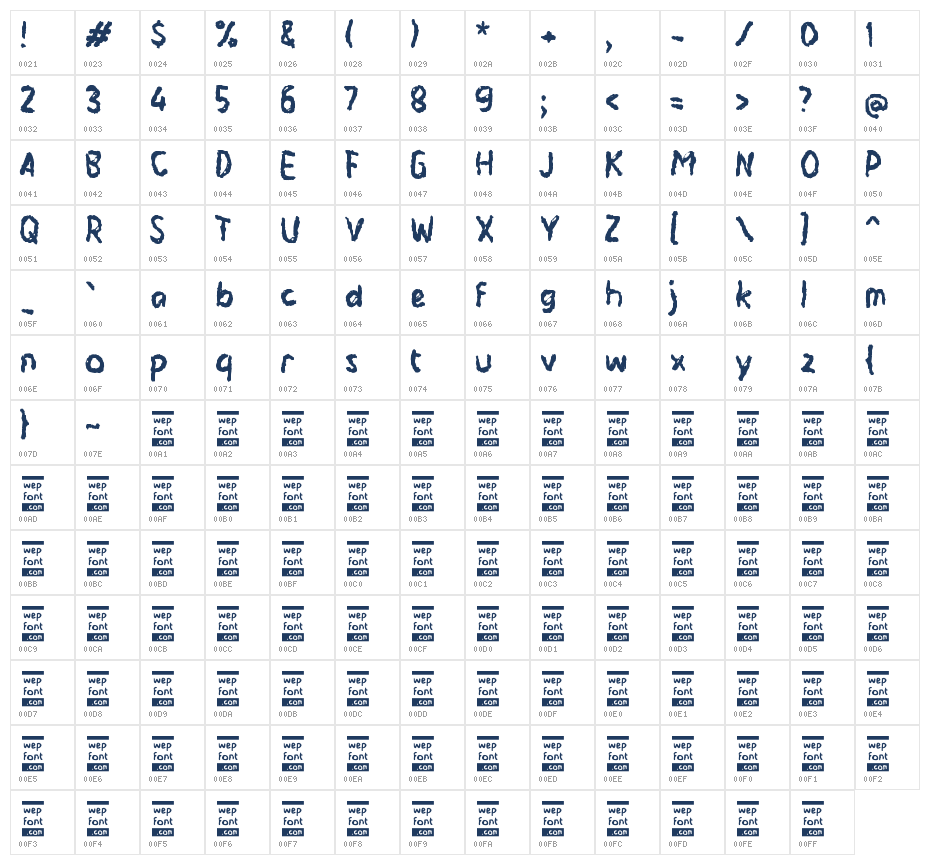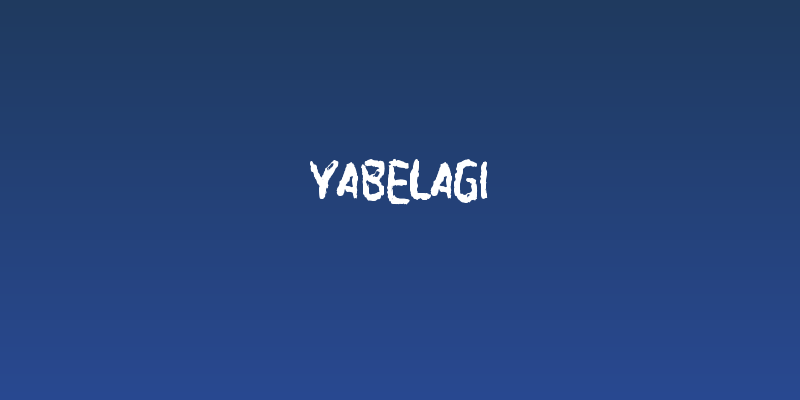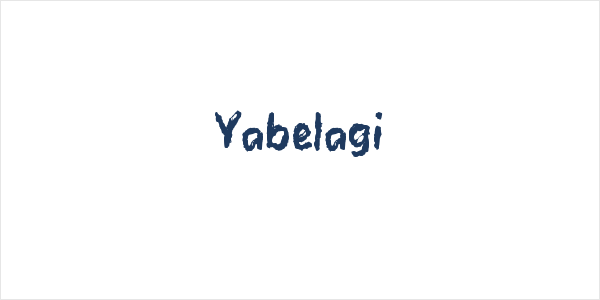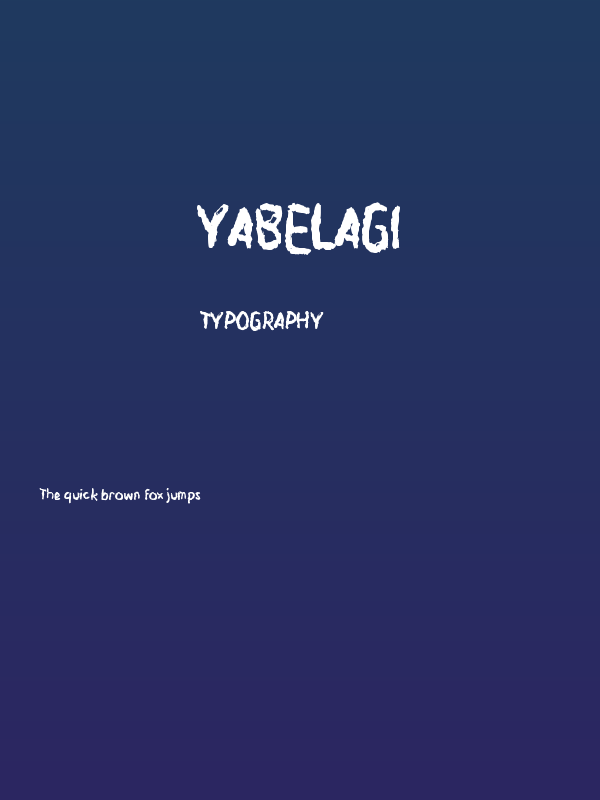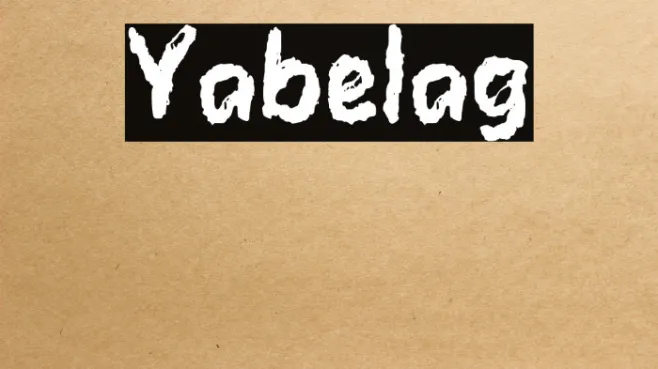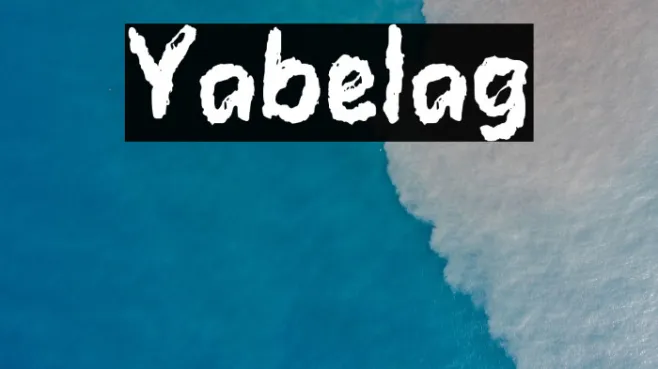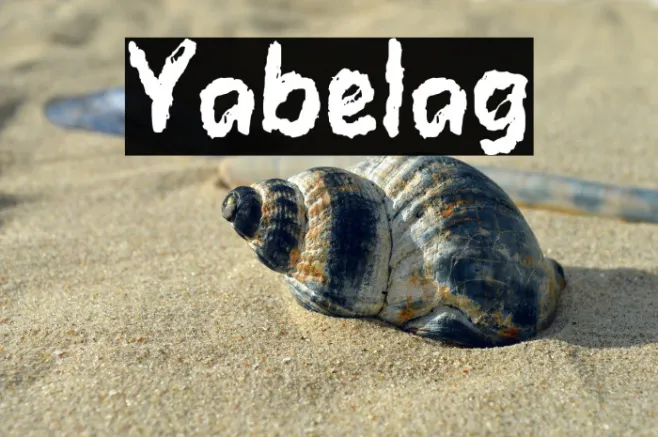
Yabelagi Font
Yabelagi Description
A rough, textured, handwritten style font with an irregular, sketchy appearance.
| Overall Style | Casual, Handcrafted, Sketchy |
| Use Case | Headlines, Posters, Children's books, Creative branding |